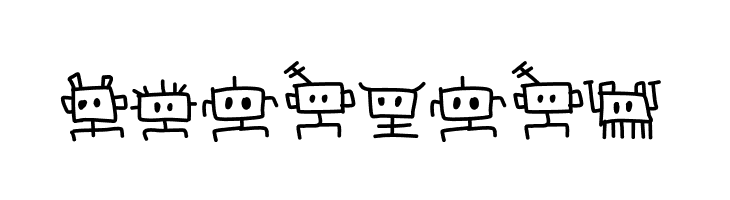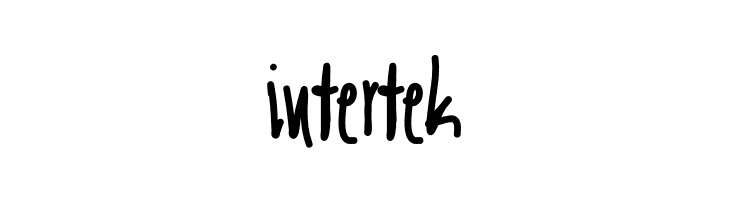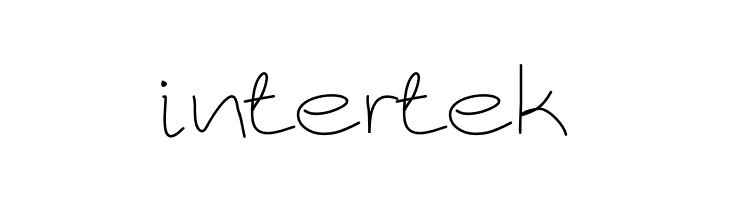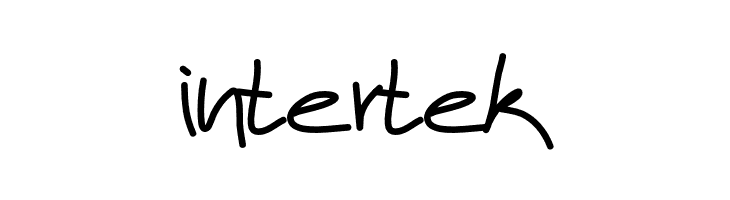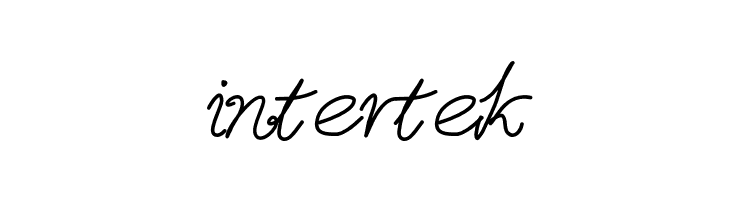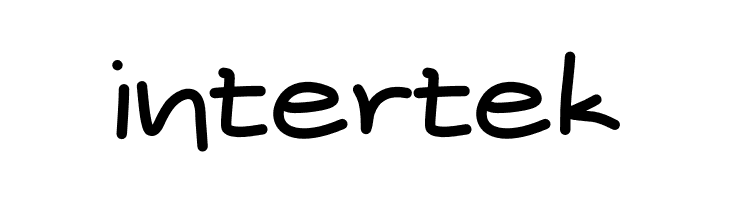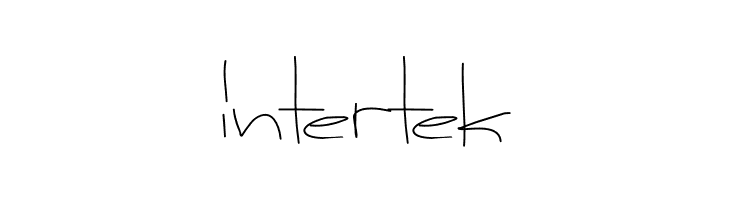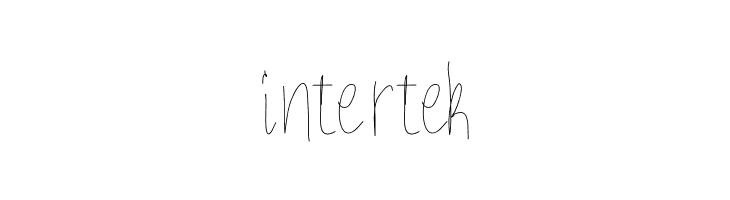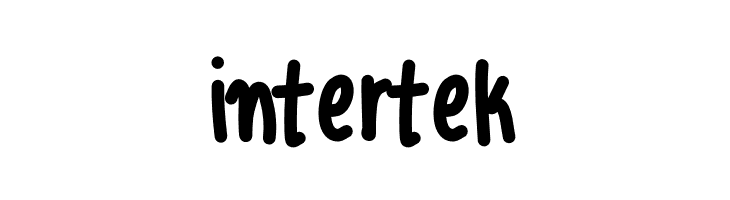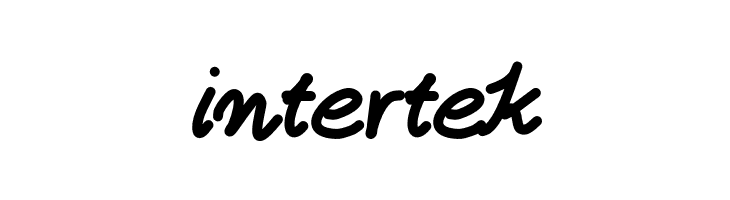
A playful, hand-drawn font featuring cartoon animal faces and simple shapes.
A playful, hand-drawn font with characters resembling quirky robots.
A chaotic and expressive handwritten font with irregular strokes.
A playful, quirky handwritten font with irregular, elongated letterforms.
A bold, playful font with a handwritten, graffiti-like style.
A dynamic, brush-like font with an expressive, hand-drawn style.
An elegant, flowing script font with cursive and calligraphic elements.
A bold, playful font with thick, rounded strokes and a friendly appearance.
A bold, playful, hand-drawn font with dynamic and irregular characters.
A bold, expressive handwritten font with thick strokes and a playful style.
A whimsical, hand-drawn font with elongated, irregular letterforms.
A playful, condensed script font with a hand-drawn, energetic style.
A playful, quirky handwritten font with tall, narrow letters and irregular strokes.
A bold, hand-drawn font with a playful and dynamic style.
A playful, handwritten font with rounded edges and a casual style.
A modern, dotted font with a playful and decorative style.
A bold, playful handwritten font with thick, rounded strokes.
A bold, playful, and condensed font with a hand-drawn, casual style.
A bold, italic script font with a lively, handwritten style.
A playful, casual handwritten font with rounded, consistent strokes.
A playful, whimsical handwritten font with dynamic strokes and artistic flair.
A playful, handwritten font with bold, rounded strokes and a casual style.
A playful, handwritten font with tall, narrow letters and a whimsical style.
A playful, whimsical handwritten font with tall, slender letters and quirky curves.
A playful, handwritten font with fluid strokes and a casual style.
A playful, handwritten font with a casual, whimsical style.
An elegant and whimsical script font with flowing, interconnected letters and playful loops.
A dynamic, hand-drawn font with sharp, angular strokes and a graffiti-like style.
A playful, casual handwritten font with smooth, flowing lines.
A playful, hand-drawn font with thin, whimsical strokes.
A playful, energetic handwritten font with irregular strokes and a casual style.
A playful, informal handwritten font with smooth, flowing lines.
An artistic, calligraphic font with flowing, dynamic strokes.
A bold, playful script font with a handwritten style.
A bold, expressive handwritten font with dynamic strokes and playful character.